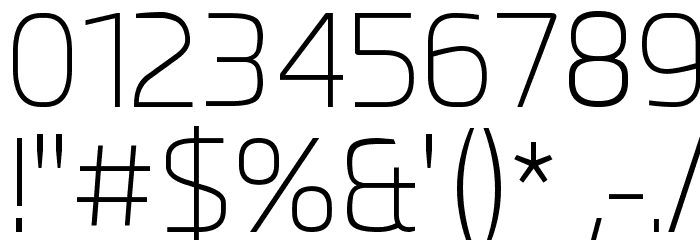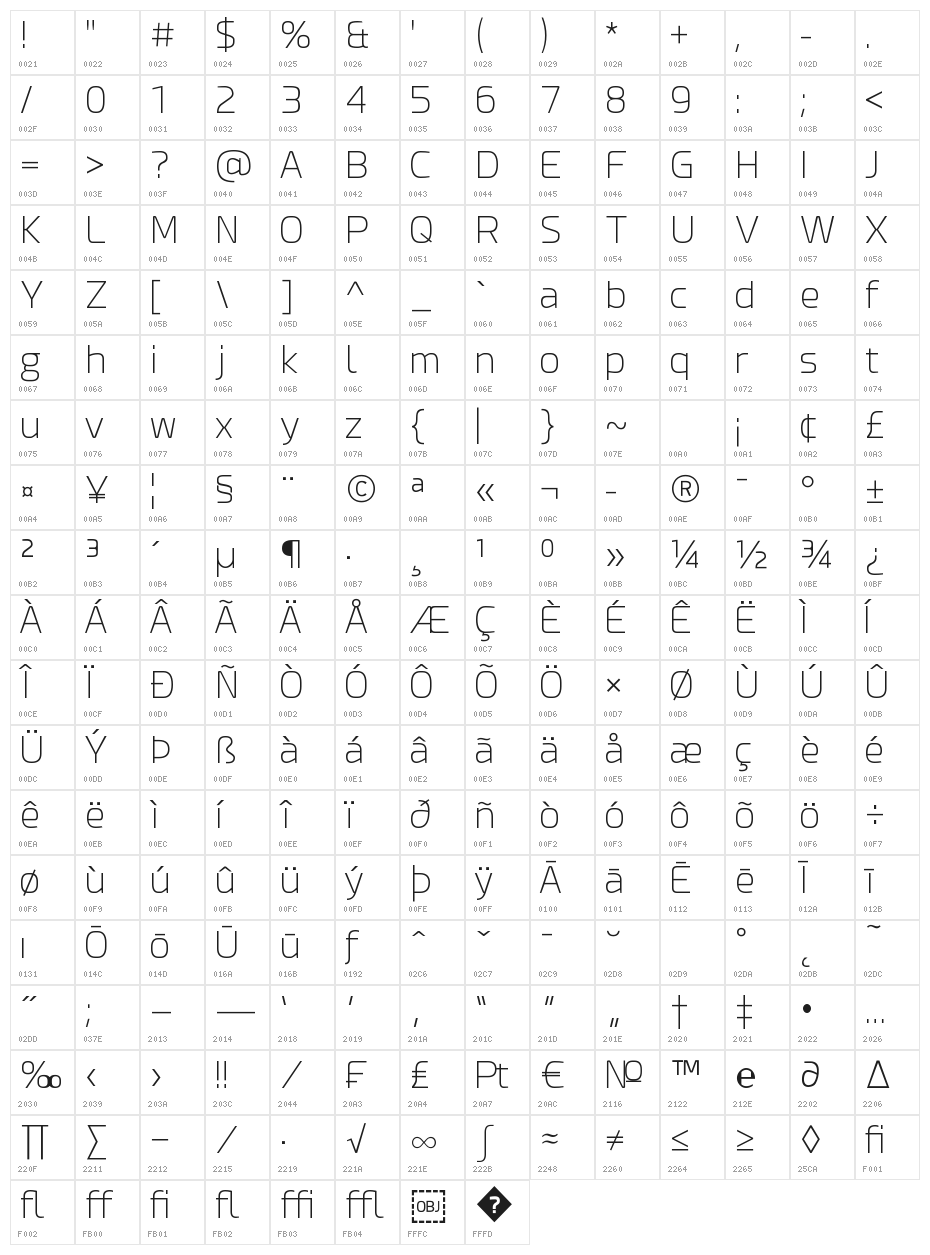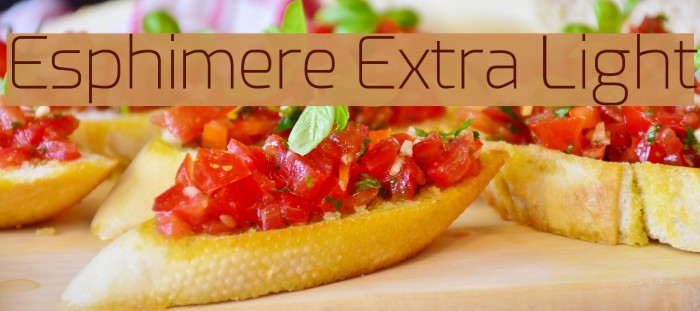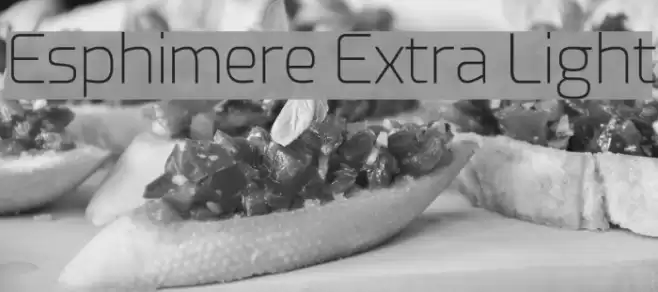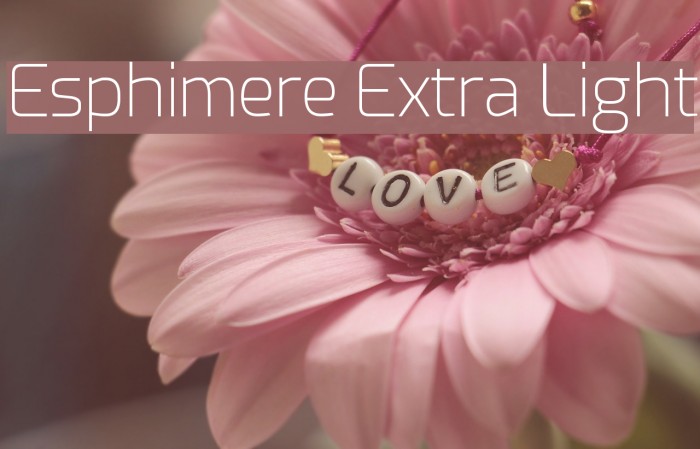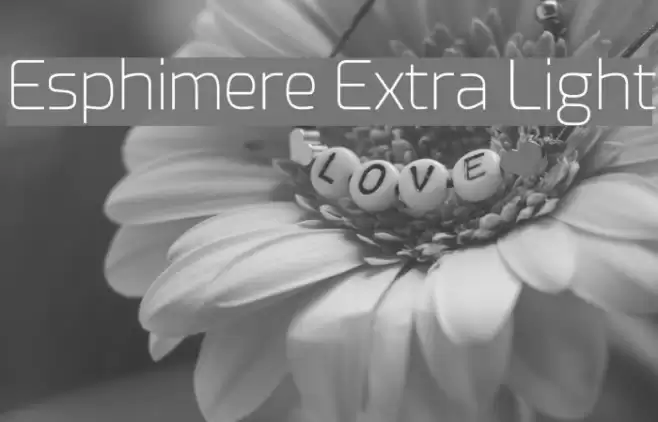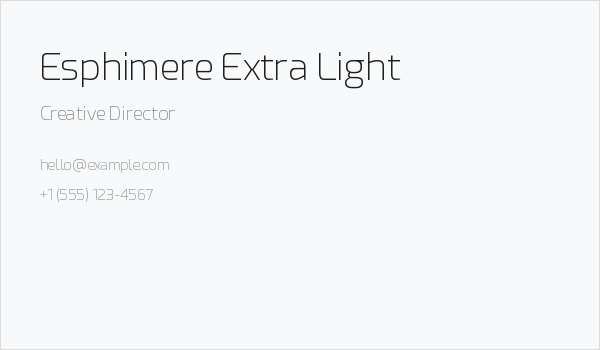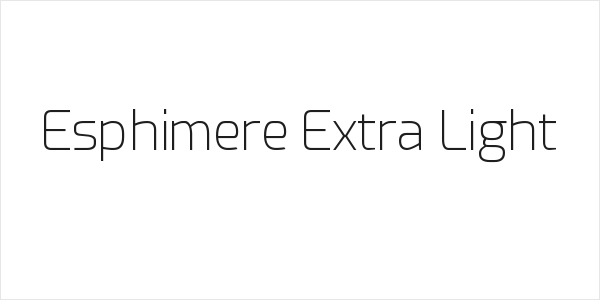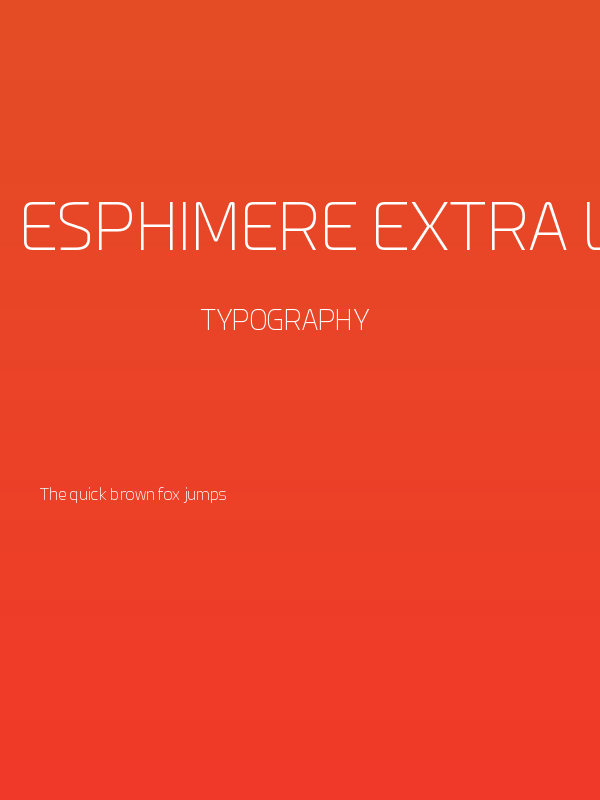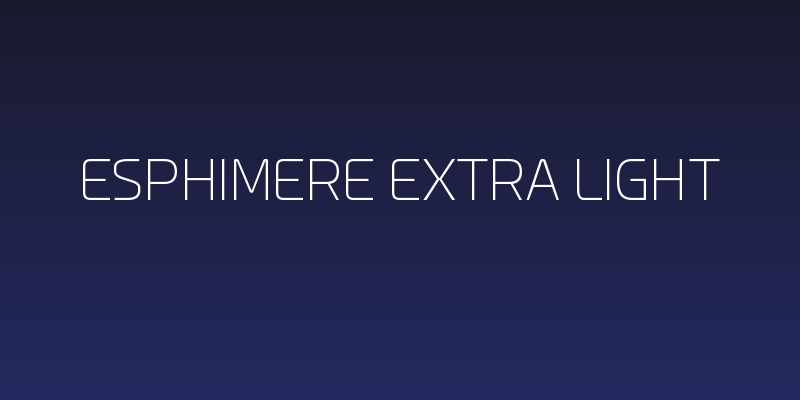
Esphimere Extra Light Font
Esphimere Extra Light Description
This font features a sleek and modern design with clean lines and a minimalist aesthetic. The characters are uniformly thin, creating an airy and open feel. The uppercase and lowercase letters maintain a consistent height, contributing to a harmonious appearance. The numerals are straightforward and align well with the overall style, while the special characters are distinct yet unobtrusive. This font's simplicity and elegance make it versatile for various design applications.
| Proposed Projects | Ideal for modern branding, tech-related projects, minimalist designs, and digital interfaces. |